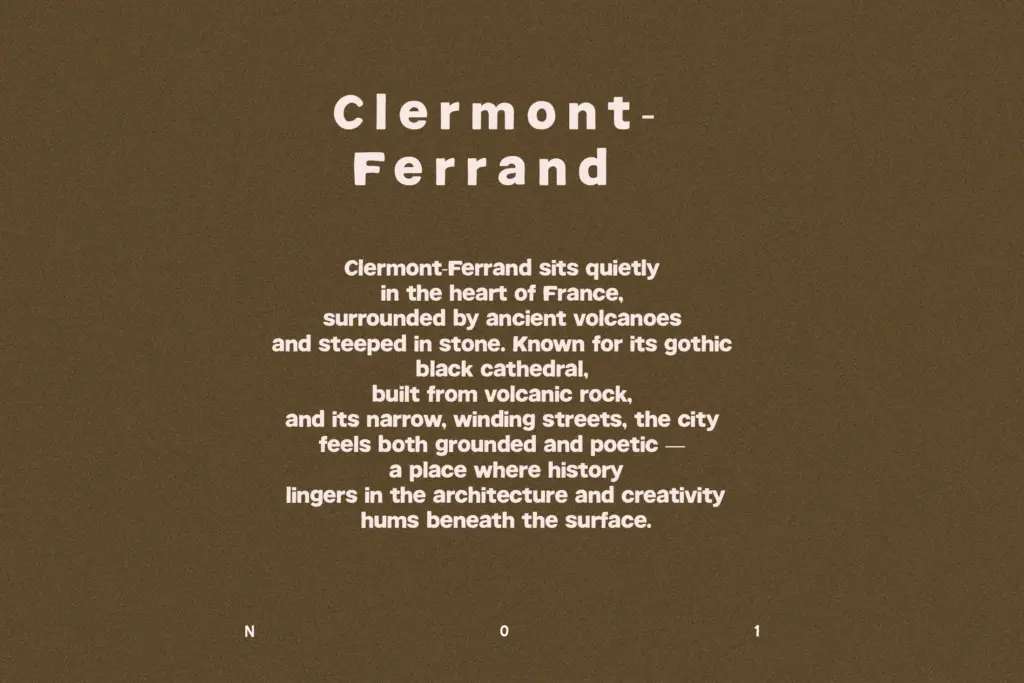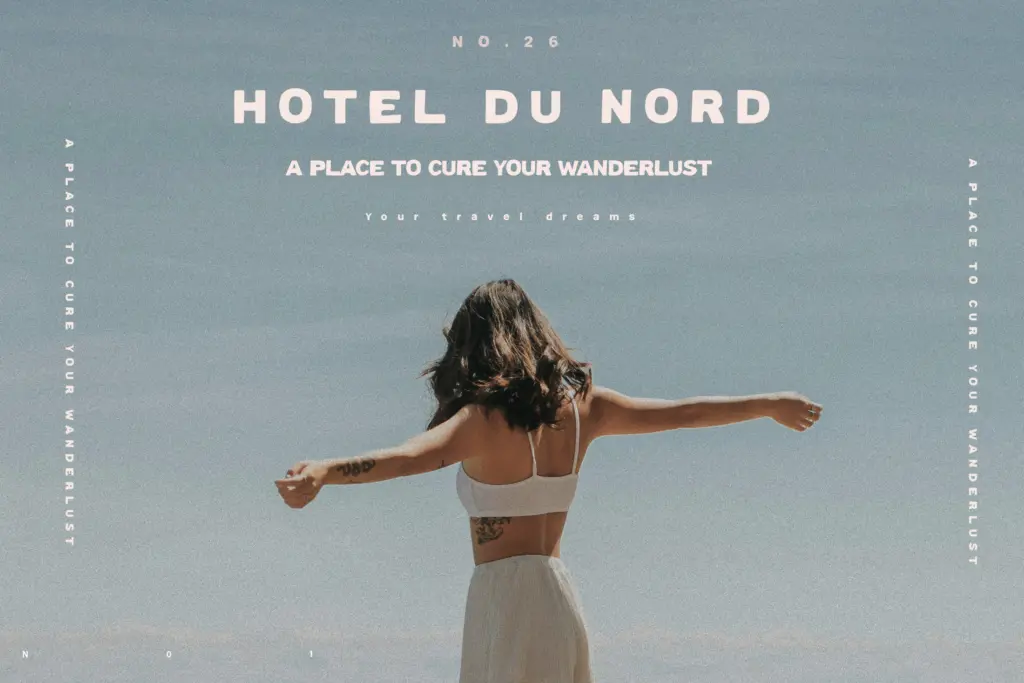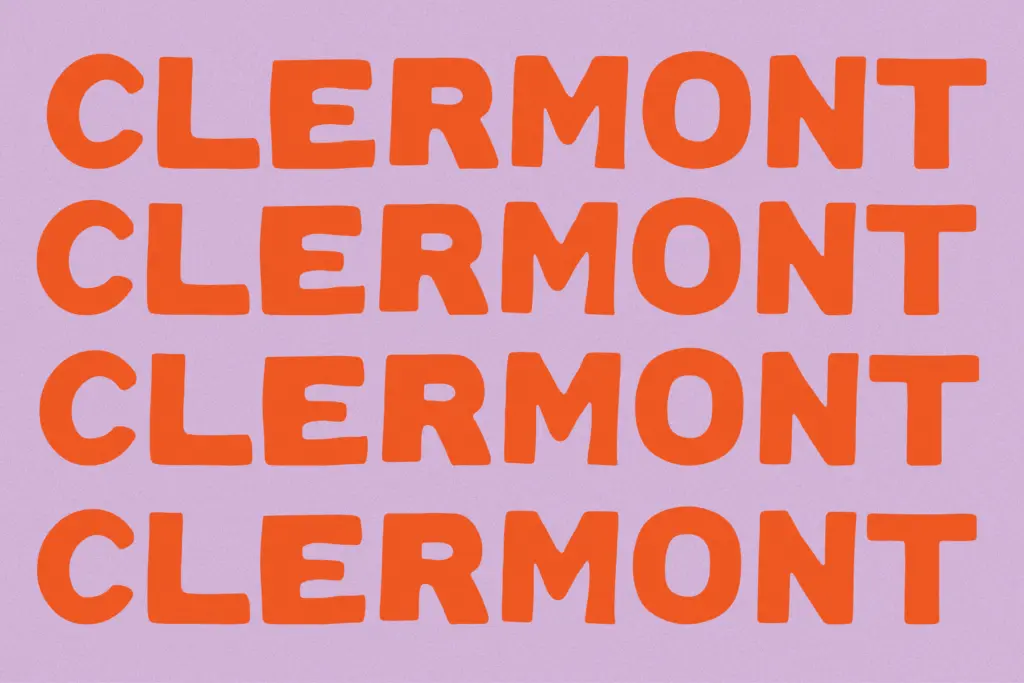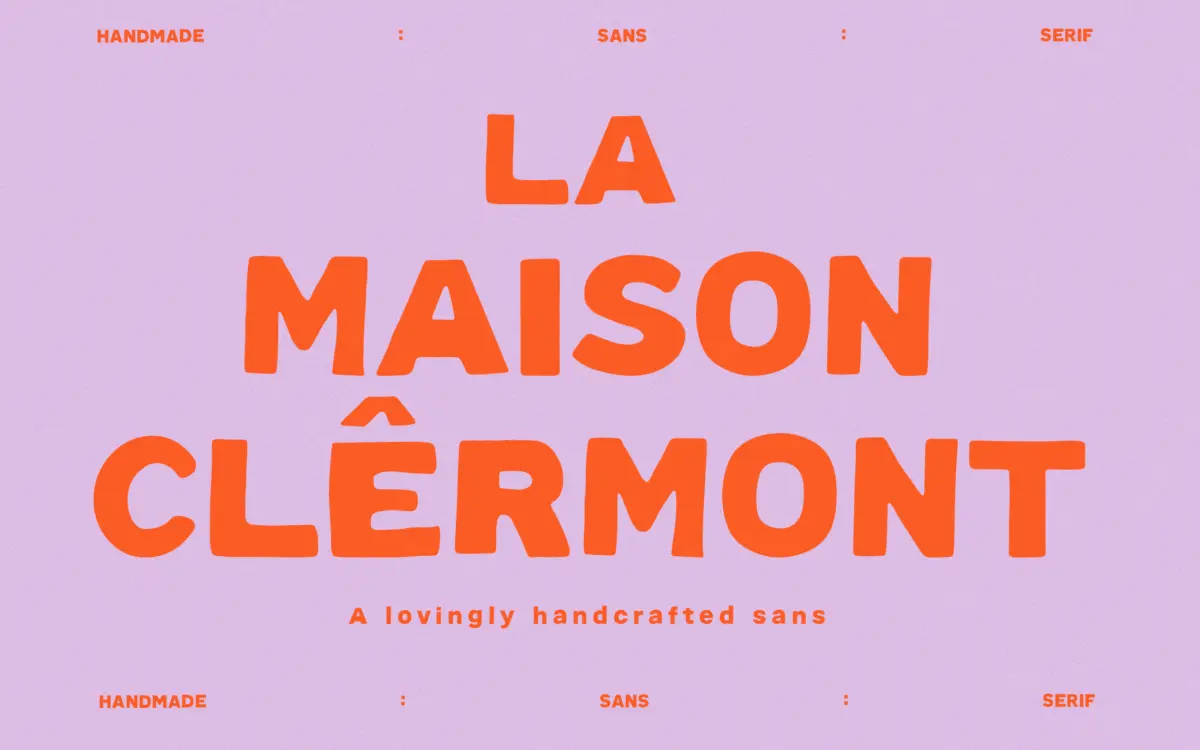
Clermont Bold sits in that crowded but reliable niche of hand-built sans faces designed to read as drawn rather than drafted. The strokes are thick and slightly uneven, with corners that round off unevenly from letter to letter, the kind of variation you get from a marker or a brush rather than a pen plotter. It reads as bold in the literal sense — heavy weight, confident stance — but the wobble in the baseline and the occasional flattened terminal keep it from feeling mechanical.
There’s a rustic, handmade quality to it that leans more toward craft-market signage than corporate branding. The letters don’t sit on a perfectly even baseline, which is clearly intentional, and gives the face a loose, almost carved-in-wood feel. It’s not trying to be a clean geometric sans with a bit of texture layered on top; it’s built from the ground up to look imperfect, and it mostly succeeds at that without tipping into illegibility.
The set includes alternate characters, which matters more here than it would in a straighter sans — swapping in alternates on repeated letters is really the only way to keep a handwritten face like this from looking stamped out. Used well, that alternate set breaks up the sameness that a single-weight, single-shape bold face would otherwise fall into, particularly on words with doubled letters.
Because it’s a single-weight bold, there’s no light or regular companion to fall back on for body copy or supporting text. That’s a real limitation if you need a hierarchy within the same family — you’ll be pairing it with something else entirely for smaller text, since Clermont’s own weight range doesn’t stretch that far. At smaller sizes the thickness of the strokes starts to close up counters, especially in tighter letters, so this isn’t a face built for long-form reading. It wants space and size.
Clermont Bold is at home on packaging for handmade or small-batch goods — labels, tags, jars, anything where a slightly imperfect, warm mark suggests a person rather than a factory made it. It also works for logotypes and short headline treatments where the wobble and weight read as intentional character rather than sloppiness, and for apothecary-style or bohemian branding where a straight, geometric sans would feel too clinical.
It’s less suited to interface work, body text, or anything that needs to stay legible at nine or ten points — the heavy strokes and irregular baseline don’t scale down cleanly. Wedding stationery is plausible for short lines like names or dates, though its rustic tone leans more artisan-market than formal invitation. Treat it as a display and lockup typeface: short words, generous size, and a supporting typeface doing the quieter work around it.
- Alternate character set genuinely helps break up repetition in a handwritten face
- Heavy, confident weight reads well as a standalone logotype or label mark
- Uneven baseline and terminals give it a believable handmade feel rather than a generic wobble filter
- Single bold weight means no built-in hierarchy for body or supporting text
- Strokes close up and legibility drops quickly below display sizes
Clermont Bold delivers a warm, hand-carved look that suits artisan packaging and short logotype work well. It's a single-weight, single-purpose face though — not something you build a whole system around, and it needs generous size to hold together.